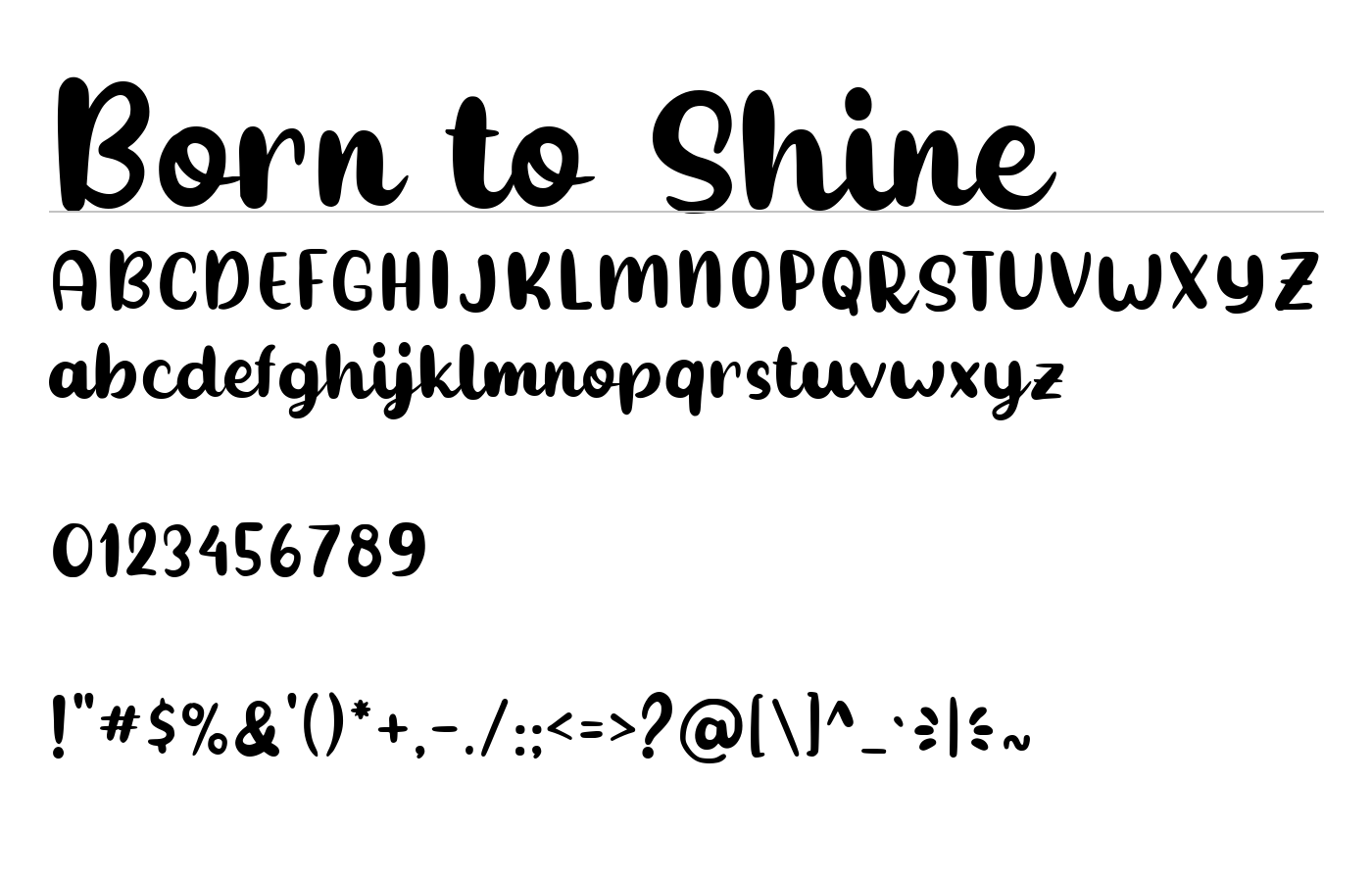
Born to Shine is a lively and playful script-inspired sans serif font with bold, rounded strokes and a warm, friendly feel. Its smooth curves and slightly irregular letterforms create an approachable, casual vibe that suits creative projects, children’s materials, and informal branding. This font works well for headlines, logos, and packaging where a fun, upbeat personality is needed to engage viewers.
Born to Shine Font
About Born to Shine Font
| Font family | Born to Shine Font |
| Designer | Jos Gandos |